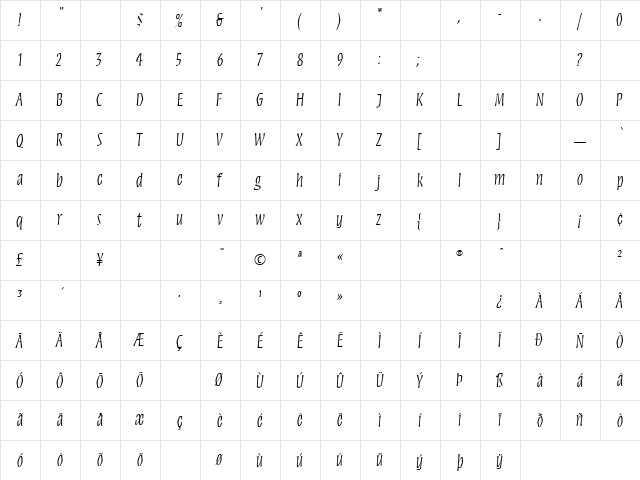
MezzMM Regular
Design Context for MezzMM Typeface
MezzMM takes a measured approach to typography — its balanced proportions and neutral character make it a reliable workhorse for both digital and print work.